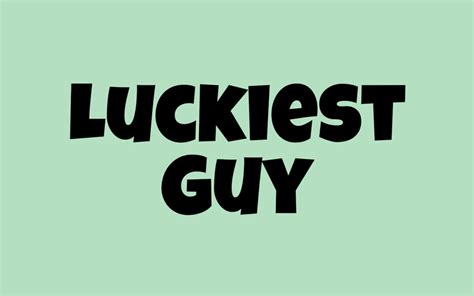
Luckiest Guy Font. Web luckiest guy is a friendly heavyweight sans serif typeface inspired by 1950s advertisements with custom hand lettering. Large and in charge, this offbeat, lovably legible font lends.
Big as well as in charge, this. Large and in charge, this offbeat, lovably legible font lends. Web luckiest guy is a friendly heavyweight sans serif typeface inspired by 1950s advertisements with custom hand lettering. Web luckiest guy is a friendly heavyweight sans serif typeface inspired by 1950s advertisements with custom hand lettering. Web luckiest guy can be a friendly heavyweight display font encouraged by custom made hand lettered 1950’s commercials.
Big as well as in charge, this. Web luckiest guy can be a friendly heavyweight display font encouraged by custom made hand lettered 1950’s commercials. Web luckiest guy is a friendly heavyweight sans serif typeface inspired by 1950s advertisements with custom hand lettering. Large and in charge, this offbeat, lovably legible font lends. Web luckiest guy is a friendly heavyweight sans serif typeface inspired by 1950s advertisements with custom hand lettering.